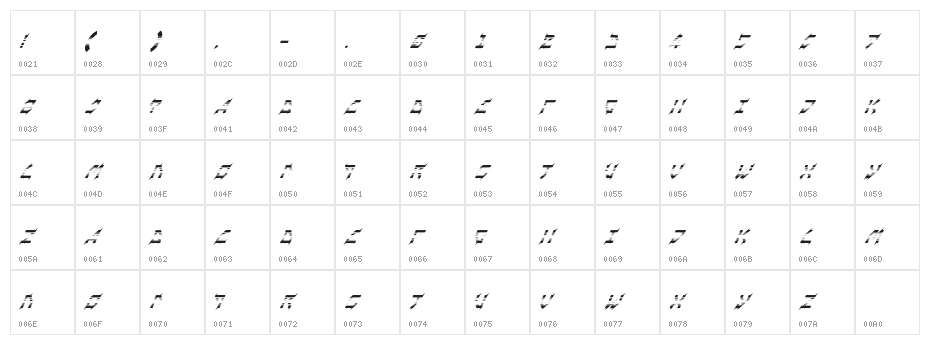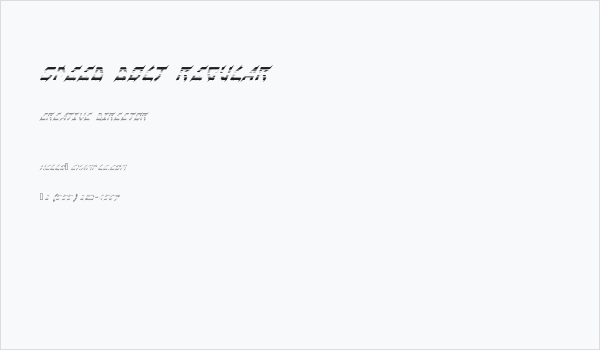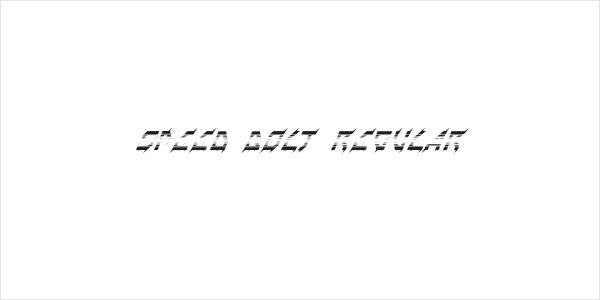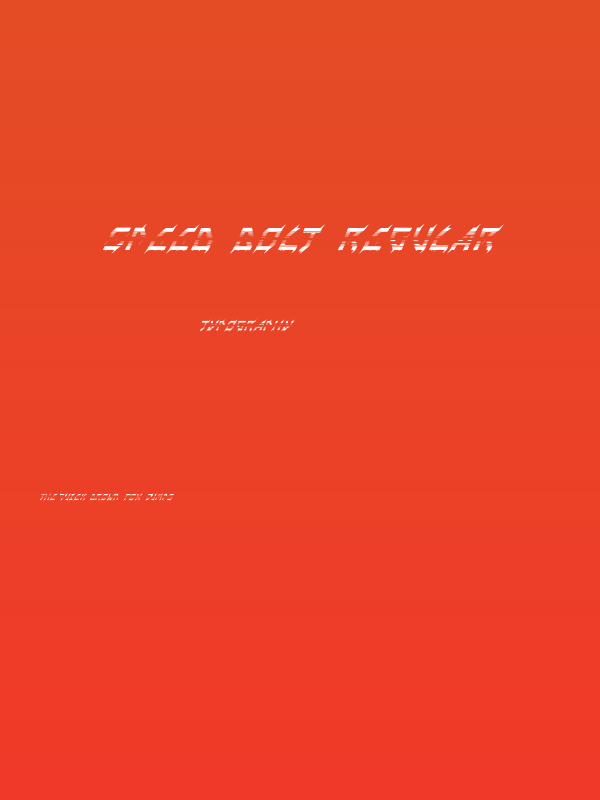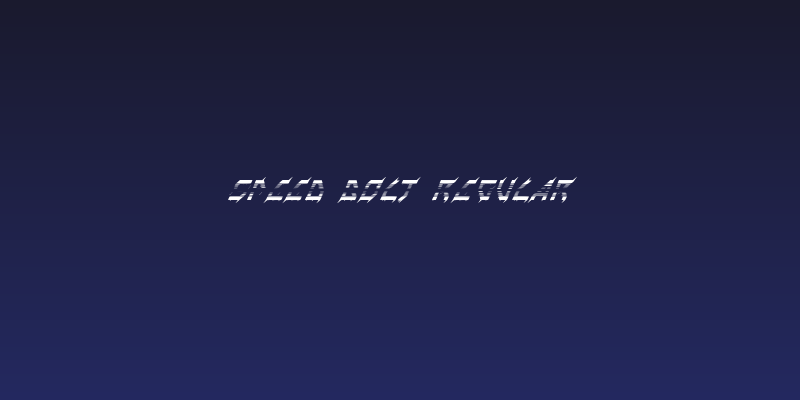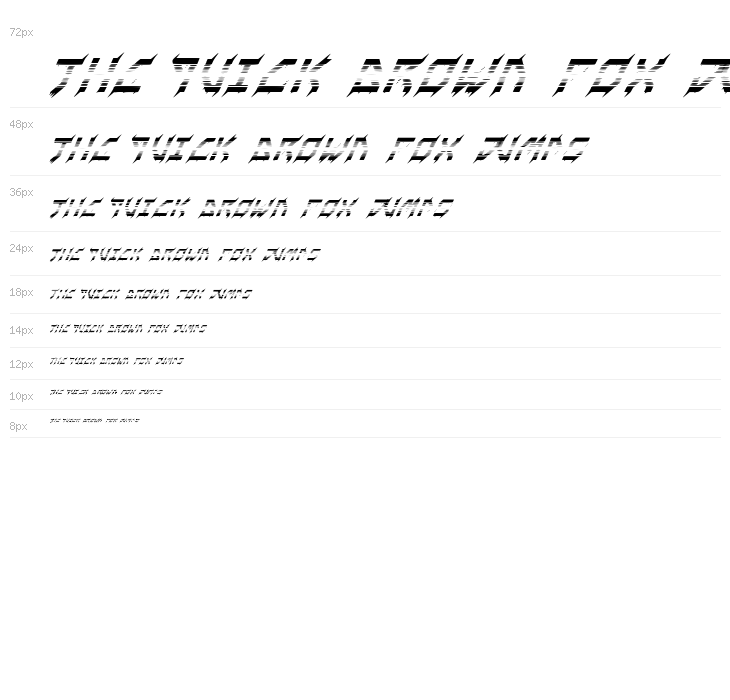
Speed Bolt Regular Font
Speed Bolt Regular Description
This dynamic and edgy font features a bold, angular design with a distinct sense of motion, reminiscent of speed and power. The characters are sharply cut with diagonal lines that create a sense of forward movement, making it ideal for projects that require a modern and energetic feel. The uppercase and lowercase letters maintain a consistent style, with the numbers and special characters following suit. The font's unique style is perfect for creating eye-catching headlines or logos that need to stand out.
| Proposed Projects | Ideal for sports branding, automotive advertisements, video game titles, and dynamic poster designs. |